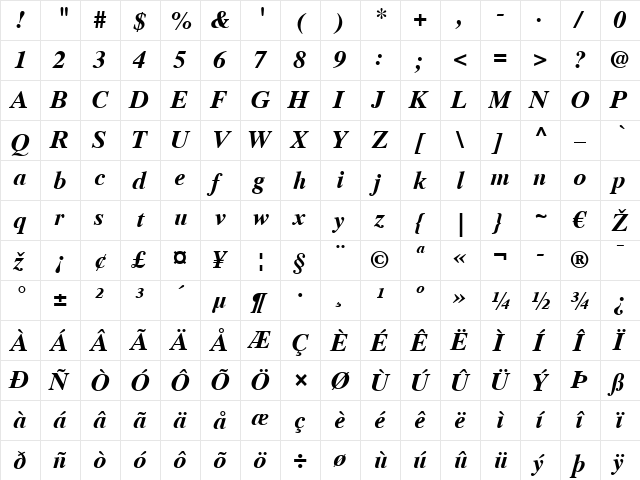
Times Ten CE Roman Bold Italic Font Preview
Design Context for Times Ten CE Roman Typeface
Times Ten CE Roman offers clean, dependable letterforms without strong stylistic allegiance, making it a practical choice for designers who need flexibility. The slanted form adds forward momentum and visual energy. The heavy weight commands attention and anchors typographic hierarchies.
Pro Tip: Try Times Ten CE Roman for annotation and caption copy alongside an upright companion — the contrast in angle creates a dynamic but ordered typographic system.